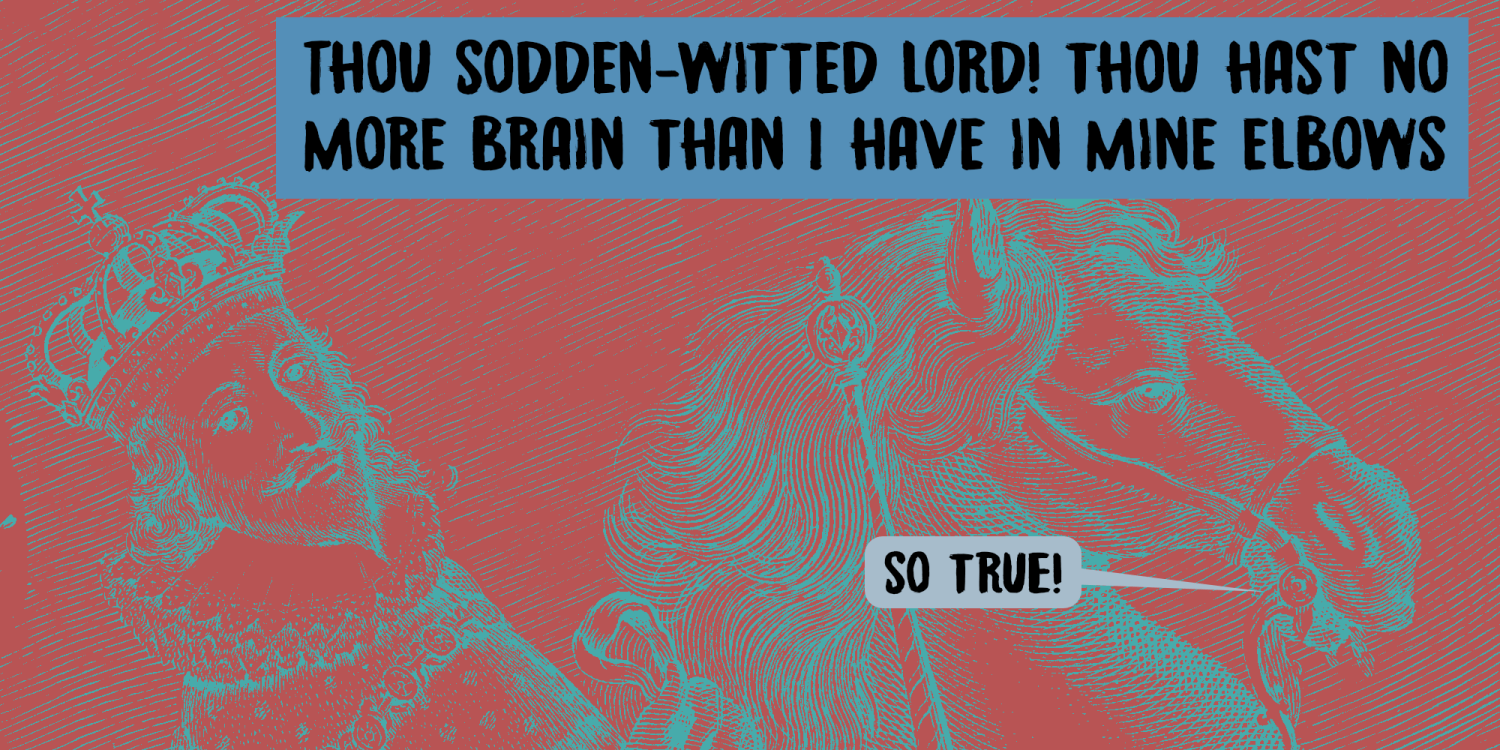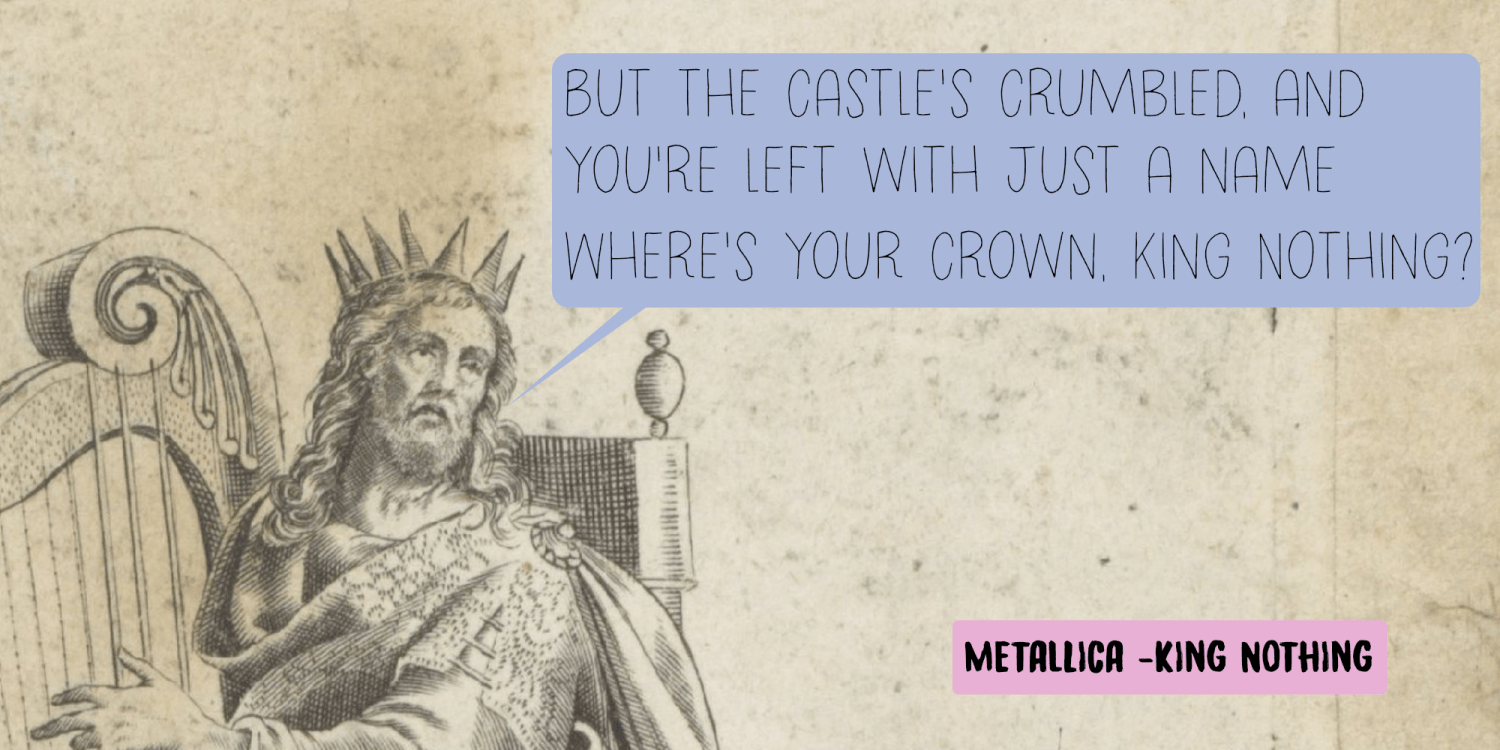
Nothing King
Nothing King is a wonderful little font family, consisting of two handmade typefaces: a light, thin version and a rough, brush font. Both fonts are designed to complement each other when used in your designs.
The name was inspired by both (very disturbing) recent events and a Metallica song called King Nothing (from their album ‘Load’). If you buy my fonts regularly, you’ll probably know that I often make references to (Death) Metal, as it is my music of choice!